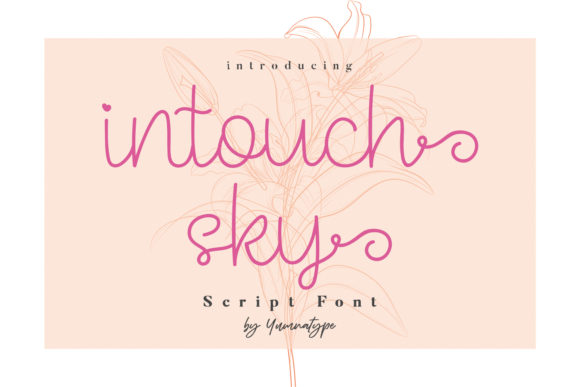
**Introducing the Intouch Sky Font: Handwritten Elegance for Your Heartfelt Creations**
Escape the mundane and embark on a captivating typographic journey with the Intouch Sky Font. This enchanting script, meticulously crafted by Yumna_Type, is a symphony of delicate strokes and graceful curves that will infuse your creative endeavors with a touch of the extraordinary.
As its name suggests, the Intouch Sky Font effortlessly evokes the intimate bond between parent and child. Its flowing characters, reminiscent of a heartfelt letter penned with care, will add a layer of warmth and emotion to your designs. Whether you're creating a cherished keepsake for your little one or expressing your love through heartfelt messages, Intouch Sky will become your trusted companion.
**A Versatile Canvas for Your Creative Expression**
Intouch Sky transcends the boundaries of a mere font; it's a versatile masterpiece that seamlessly adapts to a myriad of design concepts. Its elegant curves lend themselves beautifully to invitations, wedding announcements, and branding materials. Capture the essence of timeless romance with its graceful strokes or let your imagination soar as you craft whimsical designs that will captivate hearts.
The possibilities are limitless, and the results are always breathtaking. Intouch Sky's ability to transform ordinary text into extraordinary works of art is a testament to its undeniable charm.
**Unleash the Power of Intouch Sky**
Indulge in the exquisite beauty of the Intouch Sky Font and witness how it elevates your designs to new heights:
* **Create heartfelt letters that resonate with emotion:** Express your love, gratitude, and well wishes with the elegance of Intouch Sky.
* **Craft unforgettable invitations and announcements:** Announce special occasions with style and sophistication, leaving a lasting impression on your guests.
* **Design logos and branding materials that exude warmth and charm:** Captivate your audience with a logo that reflects the heart and soul of your brand.
* **Elevate your social media presence:** Engage your followers with captivating posts and stories that feature the alluring Intouch Sky Font.
* **Enhance the aesthetics of your website and blog:** Create a visually appealing online experience that draws visitors in and keeps them engaged.
**Embrace the Intouch Sky Experience**
With the Intouch Sky Font at your fingertips, you'll discover a boundless realm of creative possibilities. Its delicate strokes and flowing characters will inspire you to create designs that touch the heart and leave a lasting impression.